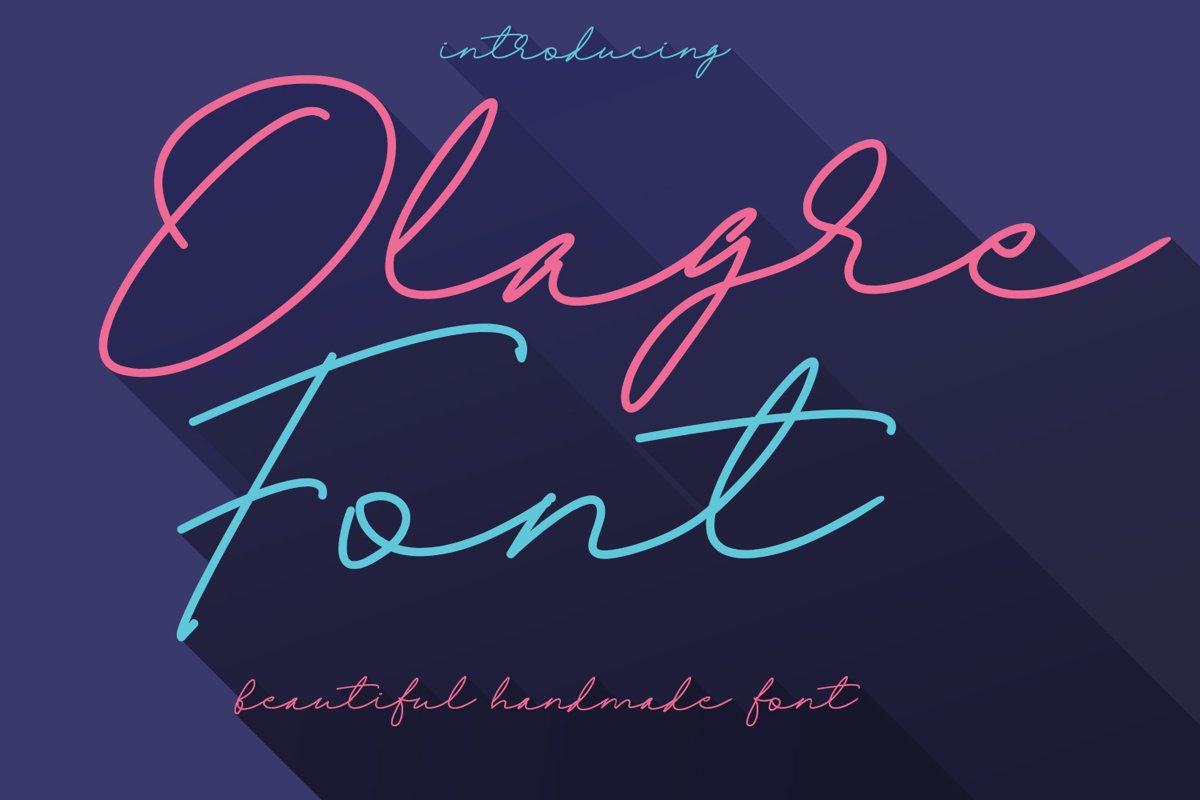
Olagre Beautiful Handmade Font
Give your designs an authentic handcrafted feel. "Olagre" is perfectly suited to signature, stationery, logo, typography quotes, magazine or book cover, website header, clothing, branding, packaging design and more.Font Available: